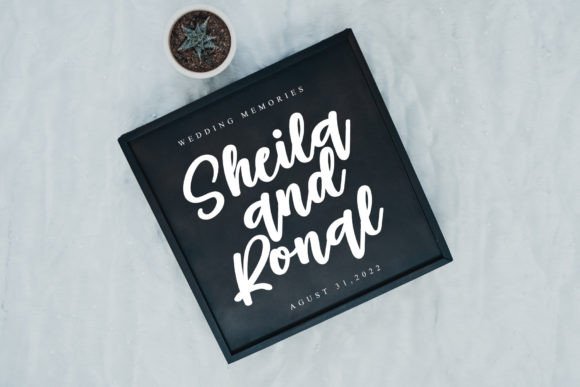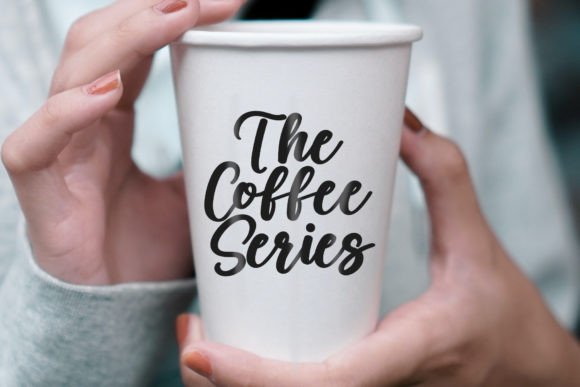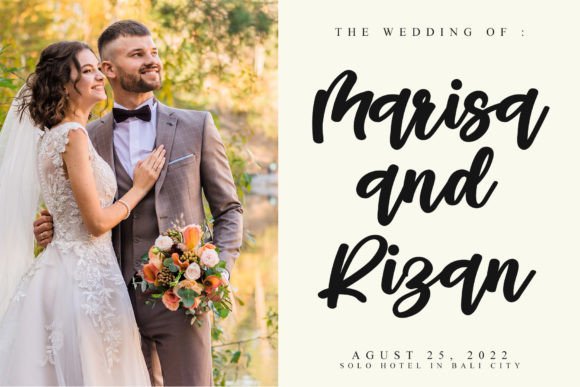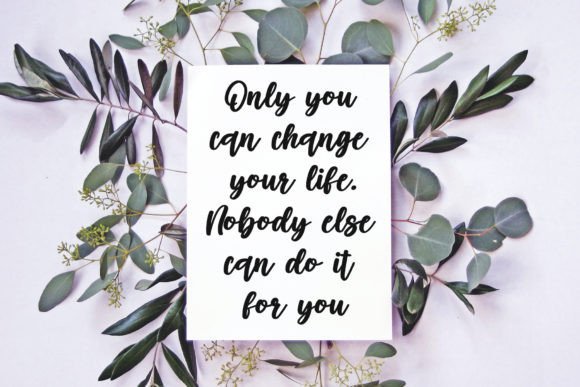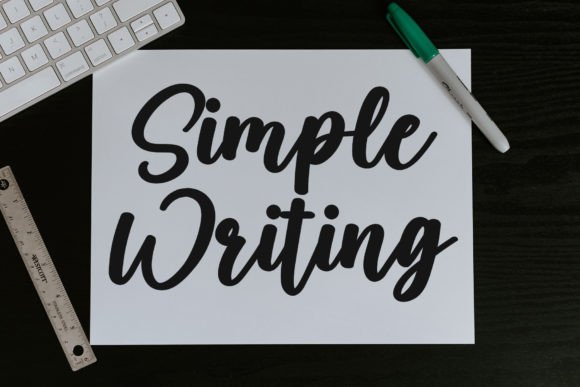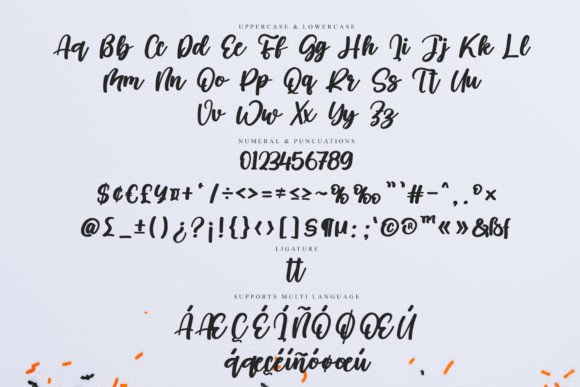
Celestial Font: Elevate Your Designs with a Touch of Whimsy
Are you tired of using the same old fonts in your designs? Look no further than Celestial, an incredible and playful handwritten font that’s sure to add a special touch to any project you can think of. Masterfully designed to become a true favorite, Celestial has the potential to bring each of your creative ideas to the highest level.
What Makes Celestial Font So Special?
Celestial is more than just a font – it’s an experience. With its unique blend of playfulness and sophistication, this font is perfect for designers and crafters who want to add a little magic to their work. Whether you’re creating a brand identity, crafting a social media post, or designing a DIY project, Celestial is the perfect choice.
Key Features of Celestial Font
- Playful and Whimsical: Celestial has a fun and carefree vibe that’s perfect for designs that need a little personality.
- Handwritten with Love: This font is meticulously crafted to give it a personal touch that’s hard to find in digital fonts.
- Highly Versatile: Use Celestial for everything from branding and advertising to crafting and DIY projects.
- Easily Readable: Despite its playful nature, Celestial is surprisingly easy to read, making it perfect for body text and headlines.
How to Use Celestial Font in Your Designs
One of the best things about Celestial is its versatility. Here are a few ideas to get you started:
- Branding and Identity: Use Celestial as a logo font or incorporate it into your brand guidelines for a unique and memorable identity.
- Social Media Graphics: Add a touch of whimsy to your social media posts with Celestial, perfect for creating eye-catching graphics and quotes.
- DIY Projects: Whether you’re making invitations, crafting signs, or creating art, Celestial is the perfect font to add a personal touch.
- Web Design: Use Celestial as a headline font or for body text to create a friendly and approachable website.
Tips for Getting the Most Out of Celestial Font
To really make Celestial shine in your designs, try these tips:
- Experiment with Colors: Celestial looks great in a variety of colors, so don’t be afraid to try out different hues and combinations.
- Mix and Match: Combine Celestial with other fonts for a unique and interesting look.
- Play with Size: Use Celestial in a variety of sizes to create visual interest and hierarchy in your designs.